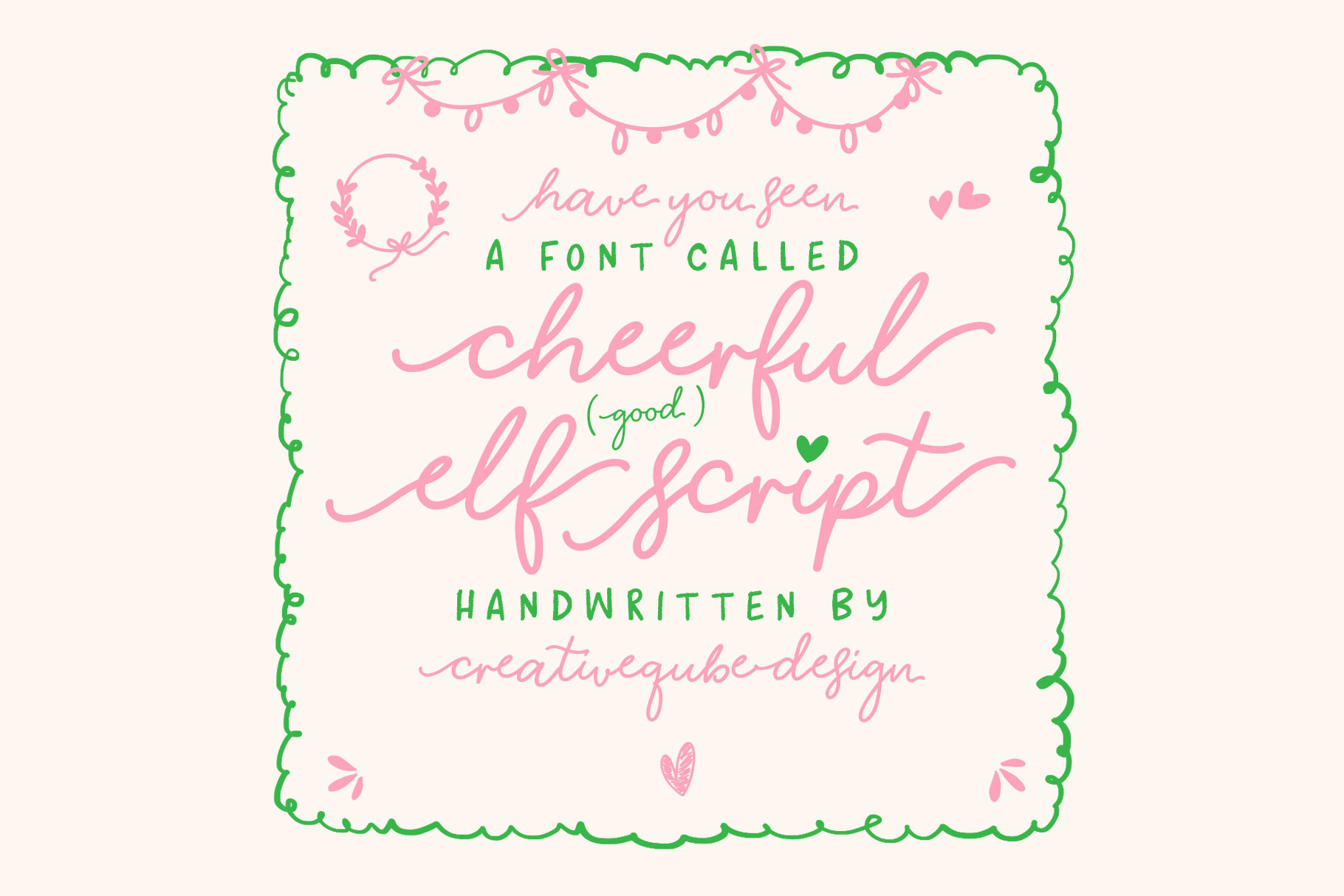
Cheerful Elf Script Font
Introducing Cheerful Elf Script font. Loaded with adorable swashes and extras, this font is perfect for so many applications.
Cheerful Elf comes in regular, bold and italic.
International characters are included.